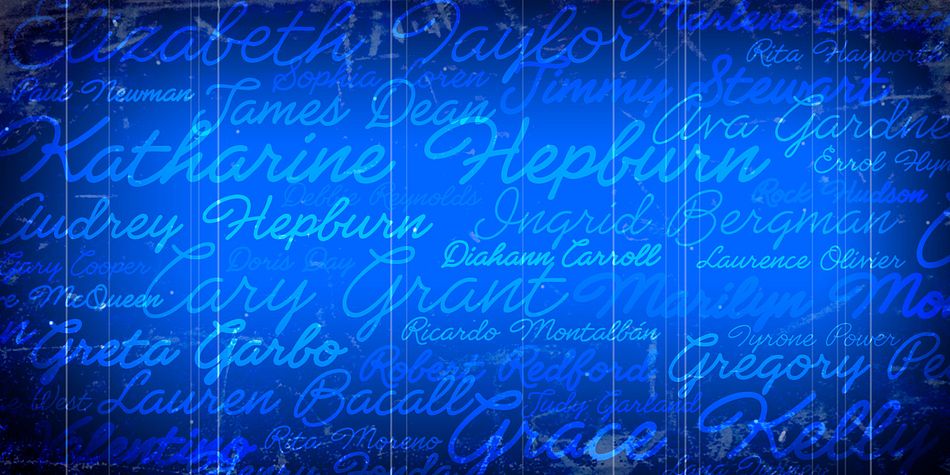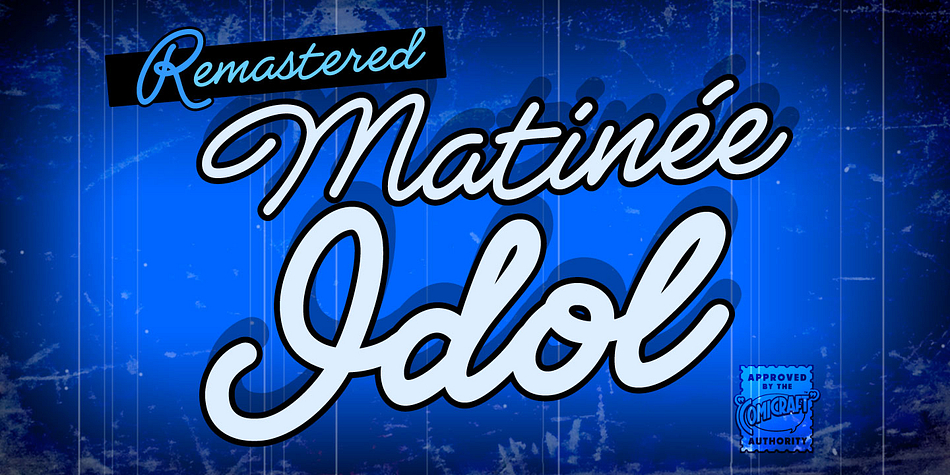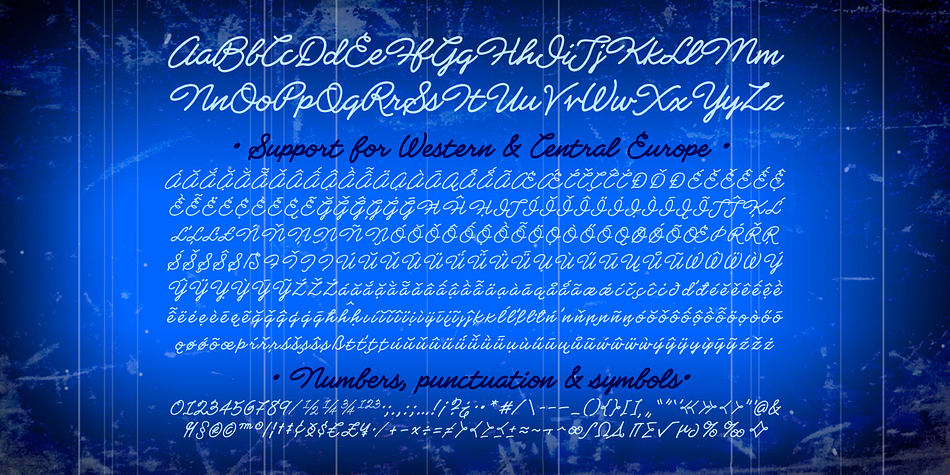
Designed by John Roshell, Matinee Idol is a script font family. This typeface has two styles and was published by Comicraft.
Now showing at your local picture house is the latest romantic comedy coupling featuring Matinee Idol and Matinee Idol Bold; famous faces you’ve come to know and love in features like Warners’ “Hush” and Columbia’s “The Evil That Men Do.” Stop by our lobby and check these fonts out for just $49—the popcorn and soda are on us!* Oh, and please remember to refrain from smoking and talking during the show!